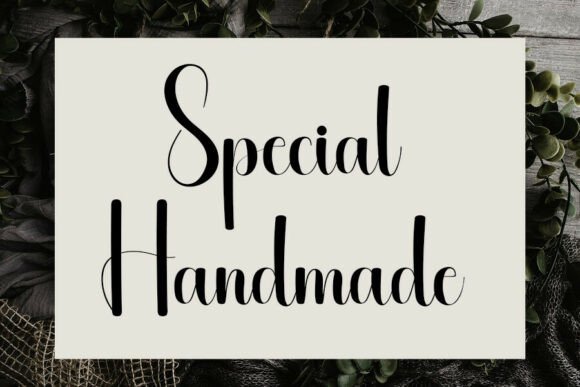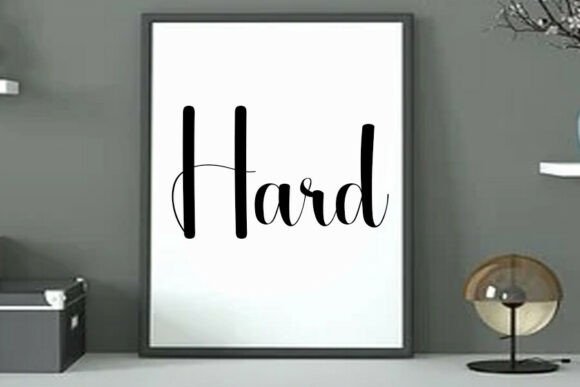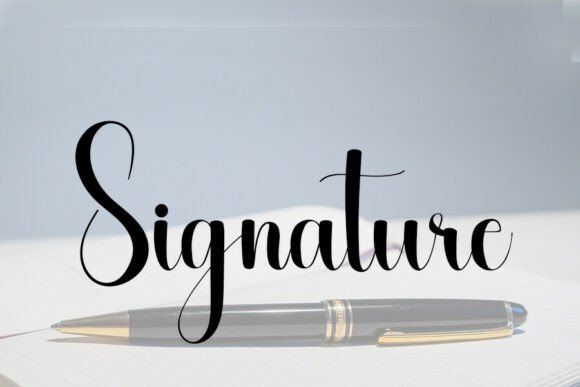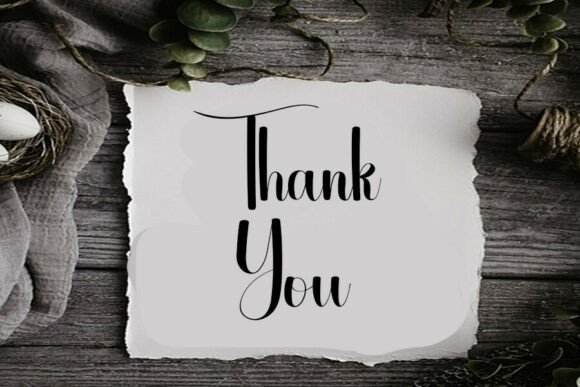
Discover the Elegance of Autography Font: Elevate Your Designs with Sophistication
Are you tired of using the same old fonts for your designs? Look no further than Autography Font, a game-changing typeface that brings a touch of elegance and sophistication to any project. With its engagingly fresh and strikingly beautiful design, Autography is the perfect choice for designers and crafters looking to amplify the aesthetic appeal of their work.
The Versatility of Autography Font
One of the standout features of Autography Font is its versatility. Whether you’re creating a YouTube banner, logo, wedding invitation, ID card, or flier, this font is sure to make your design stand out. Its unique blend of style and simplicity makes it an ideal choice for a wide range of applications, from personal projects to professional branding.
What Makes Autography Font So Special?
So, what sets Autography Font apart from other fonts on the market? Here are just a few of its key features:
- Elegant Sophistication: Autography Font boasts an elegant and sophisticated design that’s sure to impress.
- Fresh and Beautiful: With its fresh and beautiful design, Autography Font is sure to breathe life into your designs.
- Seamless Style and Simplicity: Autography Font seamlessly intertwines style and simplicity, making it the perfect choice for designers and crafters who want to create stunning designs without sacrificing readability.
How Autography Font Can Elevate Your Designs
Autography Font is more than just a pretty face – it can actually help elevate your designs and propel your business towards growth and success. Here are just a few ways that Autography Font can make a difference:
- Increased Visual Appeal: With Autography Font, you can create designs that are visually stunning and sure to grab attention.
- Enhanced Professionalism: Autography Font’s elegant and sophisticated design makes it perfect for professional branding and marketing materials.
- Improved Readability: Despite its stylish design, Autography Font remains highly readable, making it perfect for body text and other applications where legibility is key.
Why Designers and Crafters Love Autography Font
Designers and crafters love Autography Font for a variety of reasons. Here are just a few:
- Highly Versatile: Autography Font can be used for a wide range of applications, from personal projects to professional branding.
- Unique Design: Autography Font’s unique design makes it stand out from other fonts on the market, ensuring that your designs will be noticed.
In conclusion, Autography Font is a game-changing typeface that can elevate your designs and propel your business towards growth and success. With its elegant sophistication, fresh and beautiful design, and seamless blend of style and simplicity, Autography Font is the perfect choice for designers and crafters looking to create stunning designs. So why wait? Embrace Autography Font today and discover the power of simplicity meets splendor.
Key Takeaways
- Autography Font is a versatile and elegant typeface that’s perfect for a wide range of design applications.
- Its unique blend of style and simplicity makes it an ideal choice for designers and crafters looking to create stunning designs.
- Autography Font can help elevate your designs and propel your business towards growth and success.
Whether you’re a seasoned designer or just starting out, Autography Font is sure to become a go-to choice for all your design needs. So why not give it a try today and see the difference it can make?